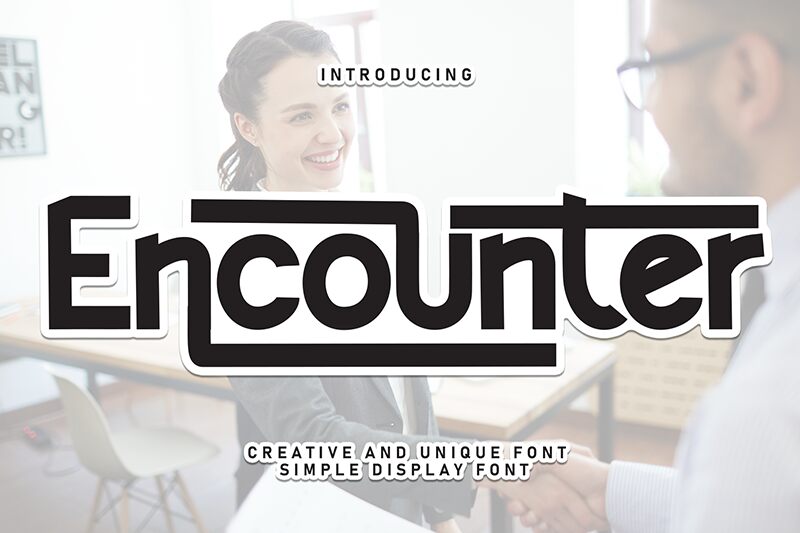
Encounter
Encounter font by Scratchones is a rounded geometric display font that displays modern aesthetics. Its clean lines and minimalist approach produce the ideal design that feels futuristic but understandable while still being on-trend. Encounter accumulates the best of different worlds and combines them in each showcased character.